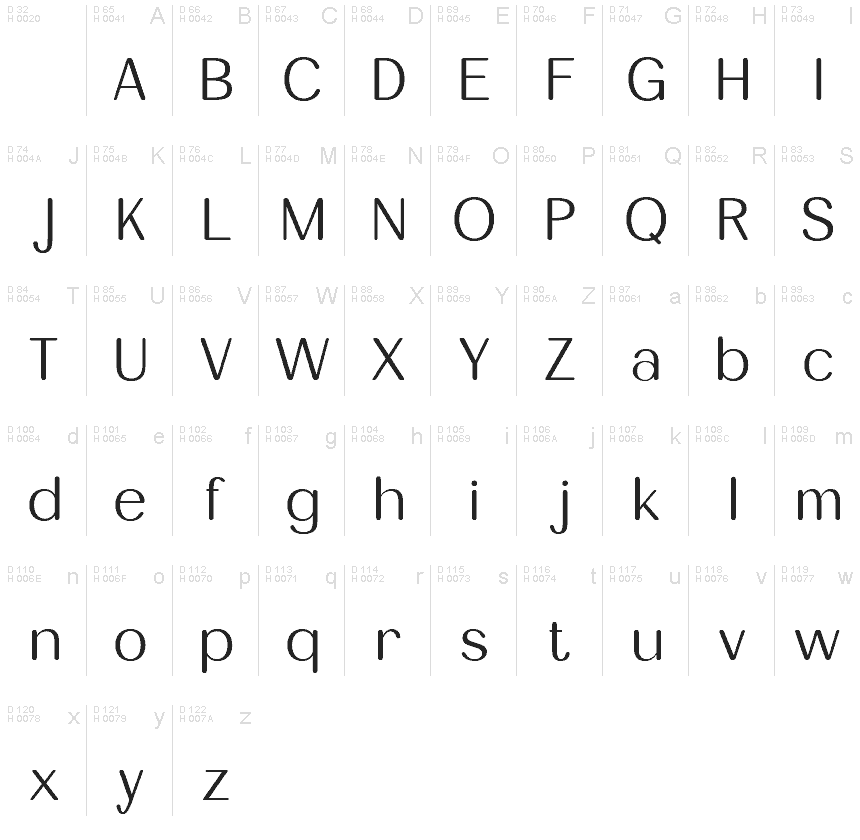
Diamend Rounded font by Craft Supply Co. is a modern display sans serif with an elegant tone, sophisticated appearance, and refined characters. This minimalistic typeface features rounded corners, thin strokes, and natural letterforms with absolutely non-geometric shapes.
Text paragraphs written with Diamend Rounded create welcoming feel which makes this free sans serif font ideal for product packaging in the beauty industry (skincare products), high-end or luxurious home decor stores branding/identity design or corporate identity design stationery items such as envelopes and invoices.